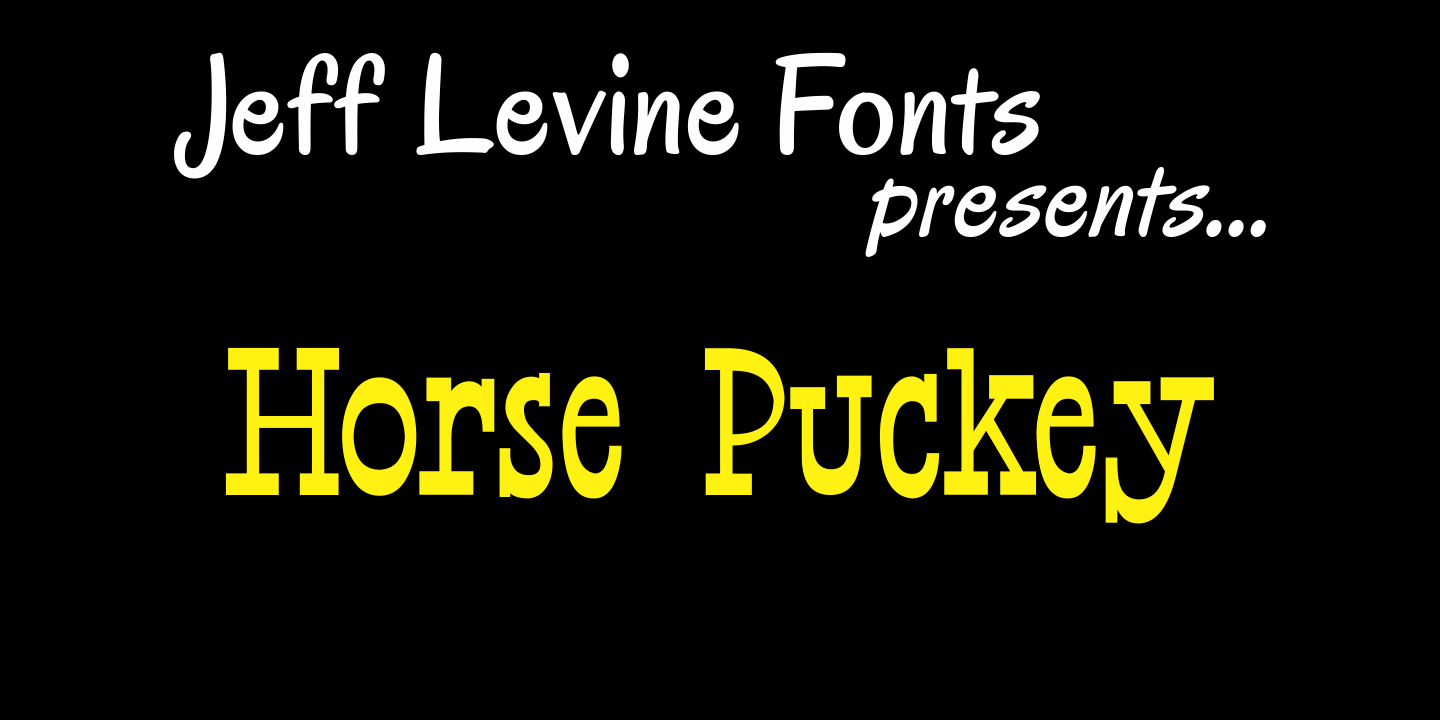
Horse Puckey
Horse Puckey JNL is a lighthearted and fun, Western-styled font based on Halavah Twist JNL by Jeff Levine. This font lends itself to the less-serious side of Cowboy life... rodeos, barbecue cookouts, barn dances, etc. Use it liberally wherever the Western look is needed for informal headlines.